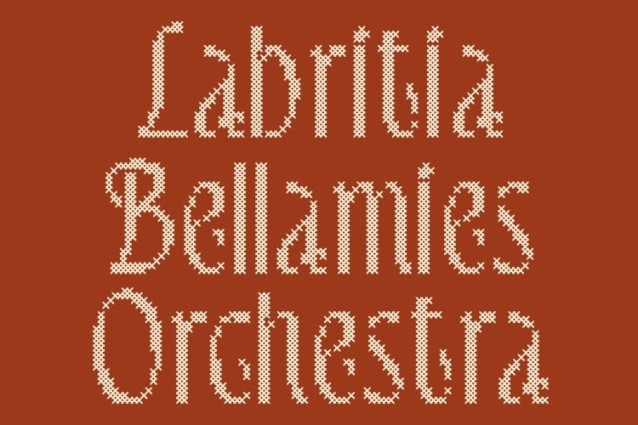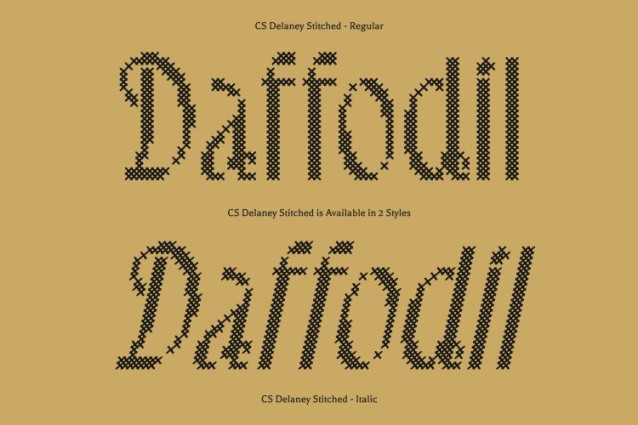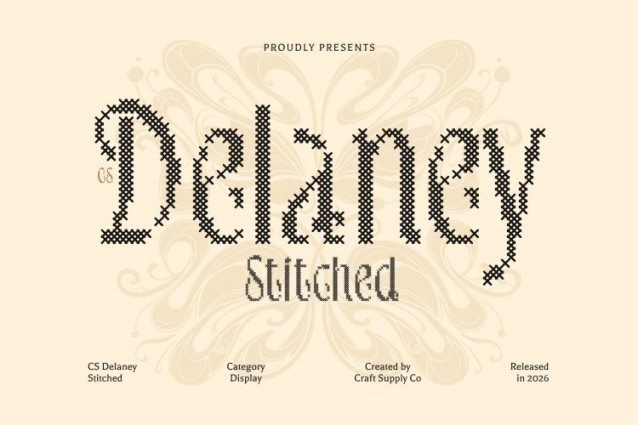
CS Delaney Stitched Font
CS Delaney Stitched Font – This is a modern sans-serif font defined by clean lines, balanced proportions, and minimalist clarity. Its refined geometry creates a calm and precise visual tone, making it ideal for both professional and creative projects that demand a contemporary, high-end aesthetic.
Elegant and Captivating Impression
With its understated sophistication, this font delivers a sense of quiet luxury. The harmonious structure of each letterform produces a polished and captivating look, perfect for luxury branding, fashion editorials, and modern layouts that value subtle elegance and timeless appeal.
Versatile for High-End Applications
Designed for flexibility, this font works beautifully across branding, editorial design, corporate identities, and premium packaging. Its minimalist yet refined character integrates seamlessly into digital and print environments, creating a polished visual presence that enhances your message without overpowering it.
Modern Simplicity with Timeless Appeal
Balancing simplicity and sophistication, this font is an excellent choice for designers seeking a contemporary font that communicates professionalism, clarity, and refined style across a wide range of design applications.